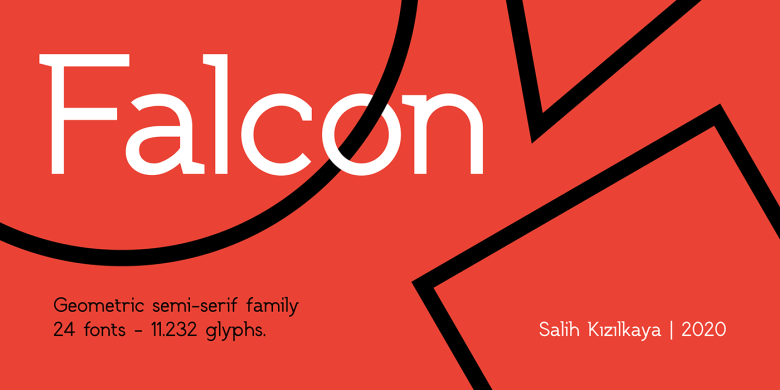
SK Falcon Sans Serif Font Demo
Hello friend. SK Falcon Sans Serif Font is a low contrast sans-serif based on simple geographic shapes. A unique modern font that is a mix of old and new. Made from font designer named Salih Kizilkaya. This typeface is a geometric semi-serif font. Inspired by the anatomy of mechanical structures, it was designed by Salih Kızılkaya in 2020 in accordance with modern design needs.
It contains 24 fonts and a total of 11,232 glyphs. Offers full support for Latin letters.